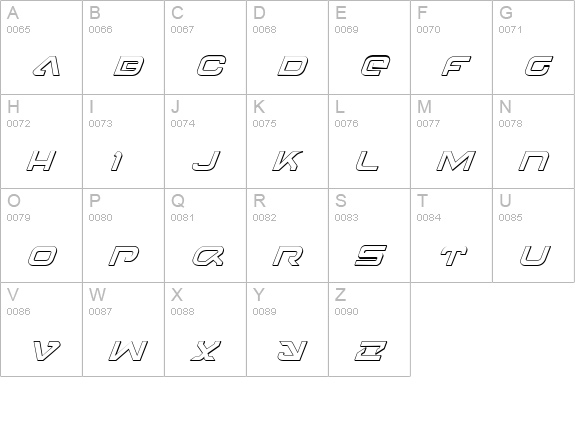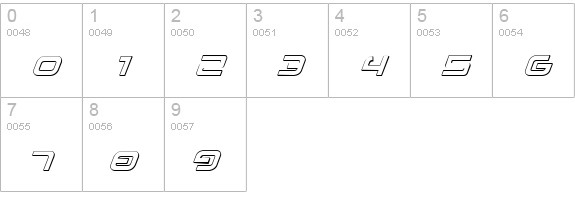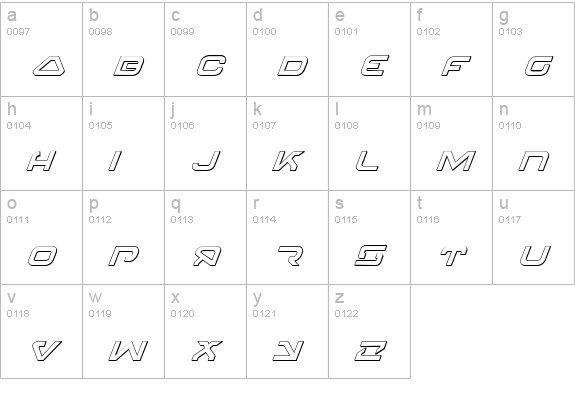
4114 Blaster 3D Italic is a distinctive, italic variant in the 4114 typeface family \xE2\x80\x94 well suited to design and typography projects.
4114 Blaster 3D Italic font is a modern and eye-catching typeface that brings a dynamic and futuristic vibe to any design project. Its sleek 3D effect adds depth and dimension, making text appear as if it's popping off the page. The italic style adds a touch of elegance and sophistication, perfect for conveying a sense of creativity and innovation. This unique font is not only visually striking but also versatile, suitable for a wide range of design applications such as posters, logos, branding, and more. Whether you're working on a sci-fi themed project or simply looking to add a touch of excitement to your designs, 4114 Blaster 3D Italic font is sure to make a bold statement. Best of all, this font is available for free download at FontsMarket.com. So go ahead and unleash your creativity with 4114 Blaster 3D Italic font today!